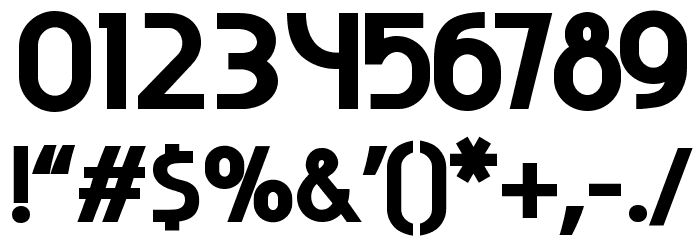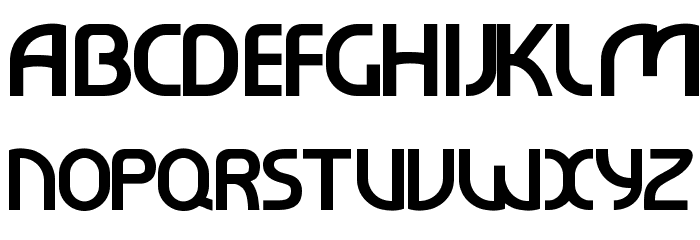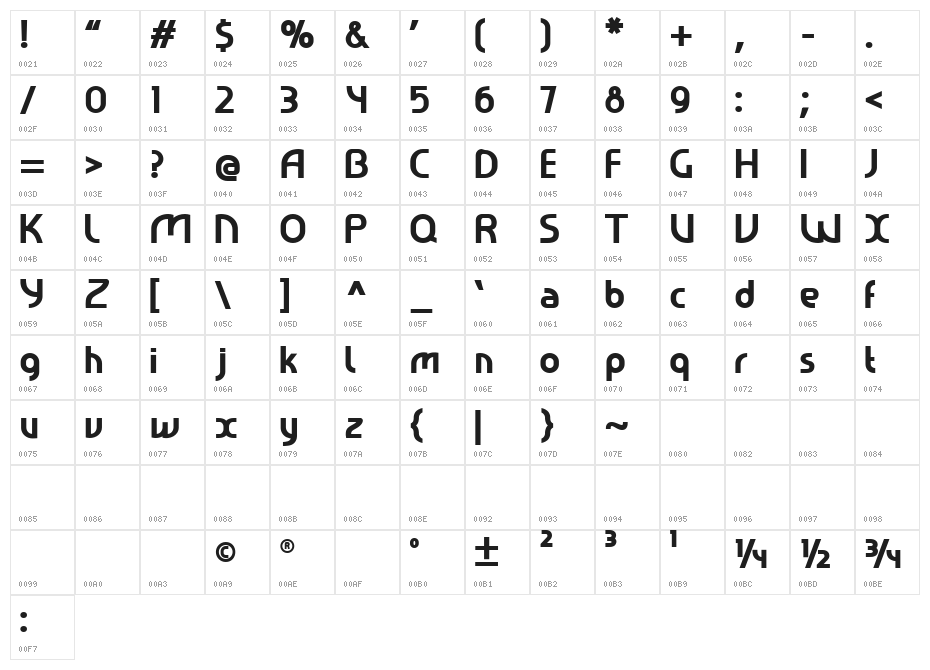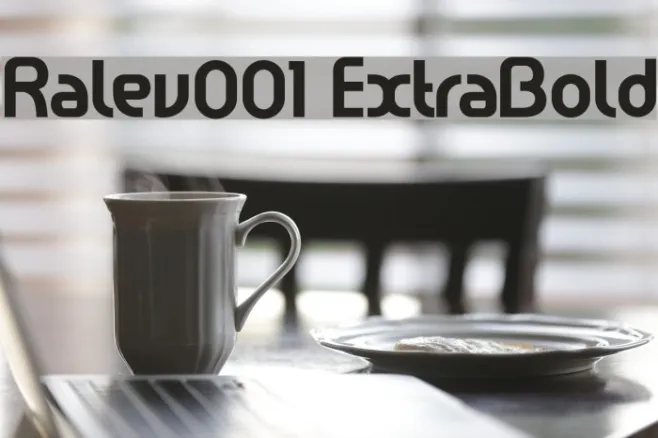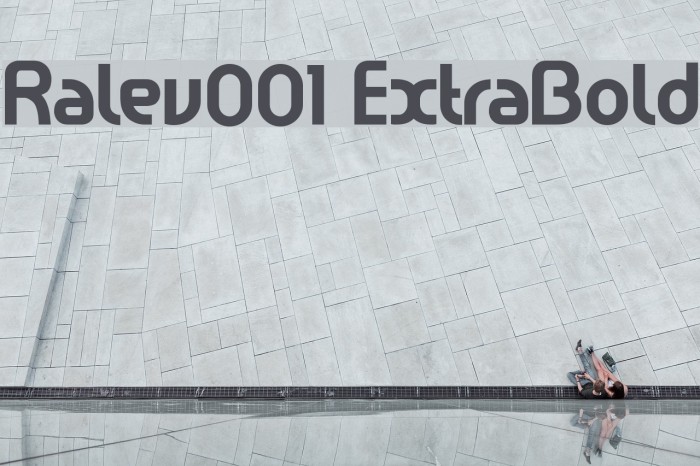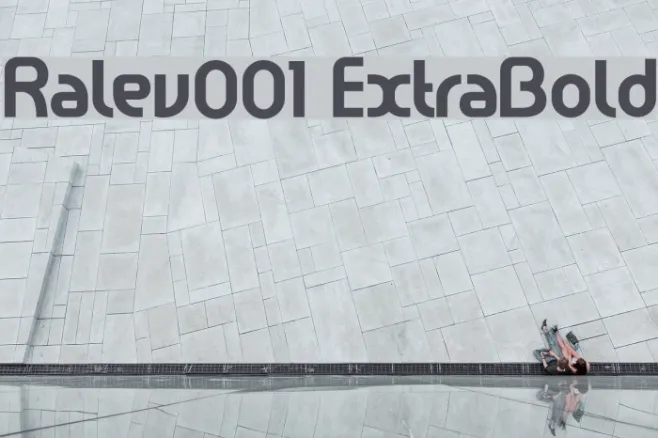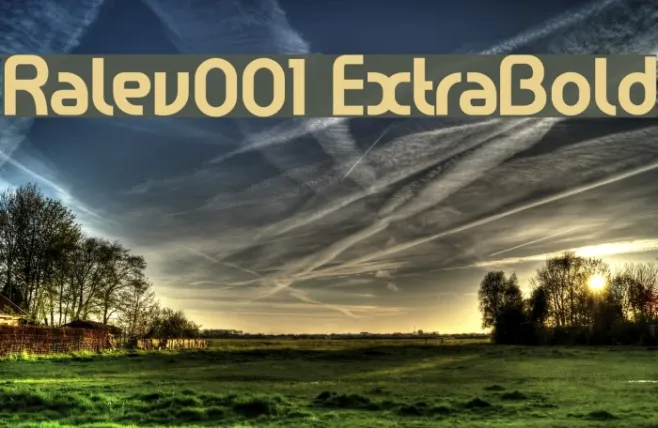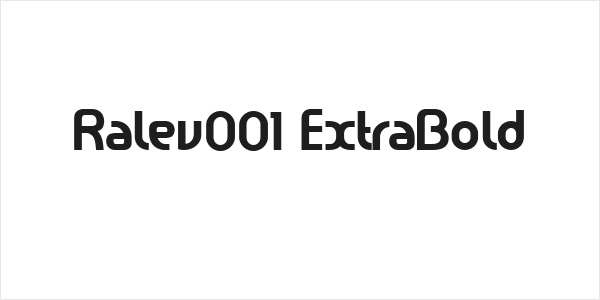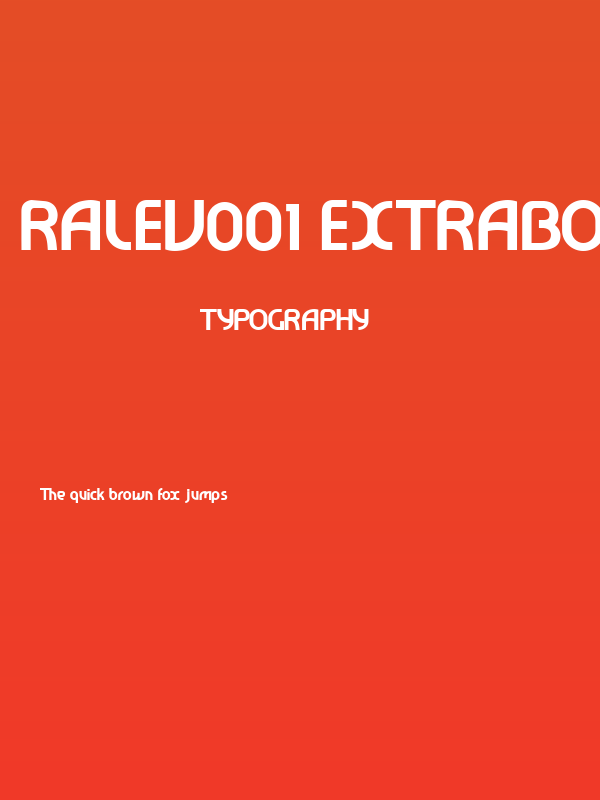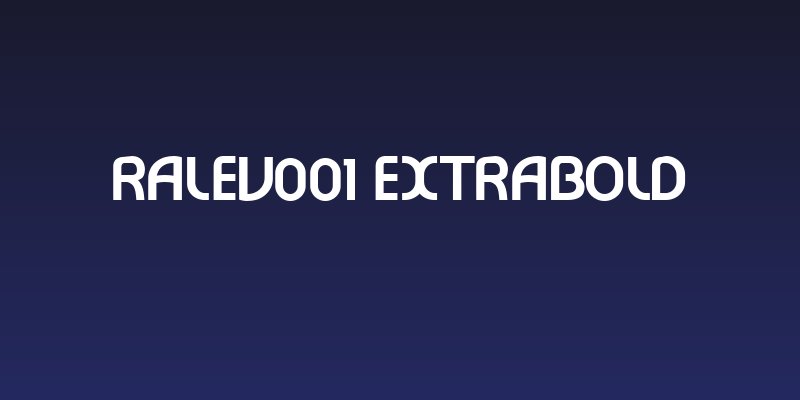
Ralev001 ExtraBold Font
Ralev001 ExtraBold Description
This typeface features a bold and modern design with a geometric structure. The characters are crafted with smooth curves and sharp angles, creating a dynamic and contemporary appearance. The uppercase letters are uniform in height, while the lowercase letters maintain a consistent baseline, enhancing readability. The numerals are distinct and well-balanced, complementing the overall style. Special characters are designed with the same attention to detail, ensuring versatility across various applications. The font's bold weight and clean lines make it suitable for impactful headlines and branding projects.